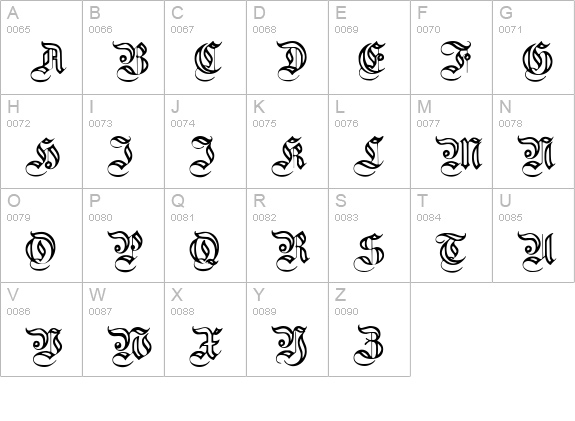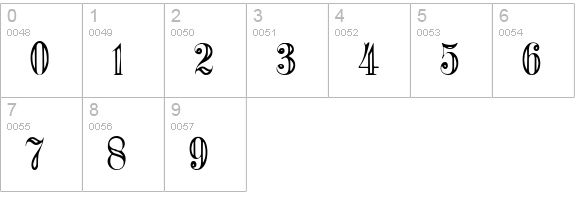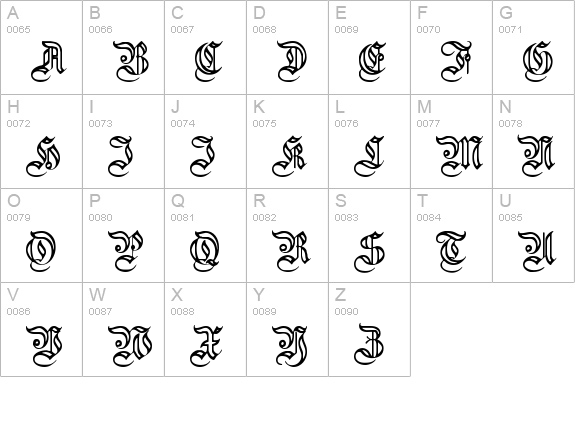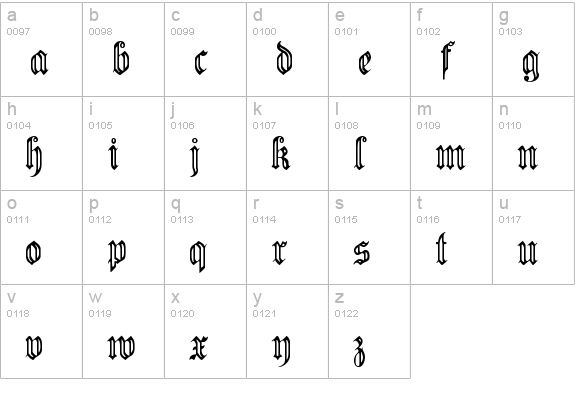
FlutedGermanica Font Details
FlutedGermanica font is a stunning display typeface that exudes elegance and sophistication. Its carefully crafted fluted design gives it a unique and timeless appeal, making it perfect for a wide range of creative projects. With its clean lines and intricate details, FlutedGermanica font is sure to make a bold statement wherever it is used. The best part? FlutedGermanica font is available for free download at FontsMarket.com. This means you can easily add this beautiful typeface to your font collection without breaking the bank. Whether you're designing a logo, poster, or website, FlutedGermanica font will elevate your projects to the next level with its distinctive charm and versatility. Don't miss out on the opportunity to enhance your designs with the exquisite FlutedGermanica font. Download it for free today and let your creativity shine!